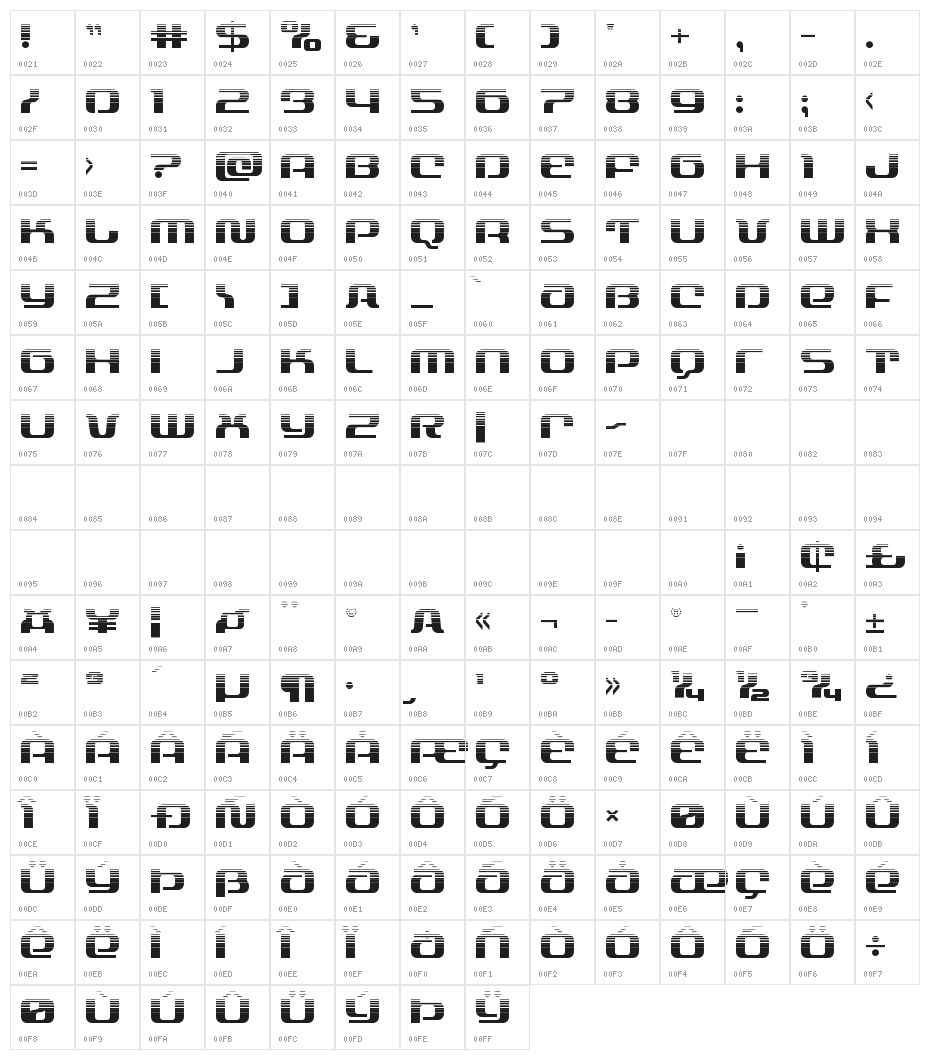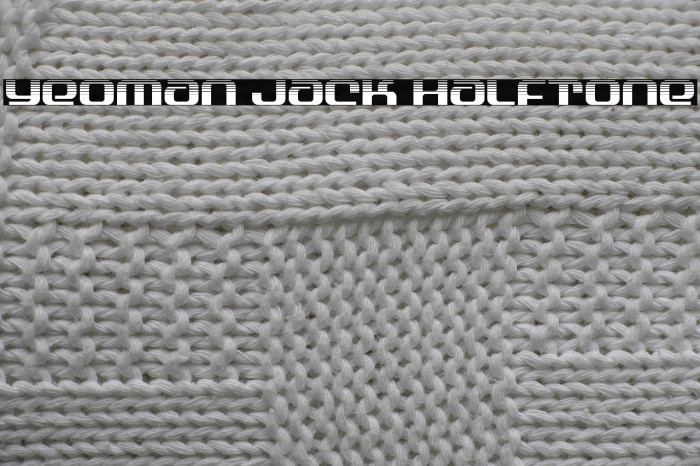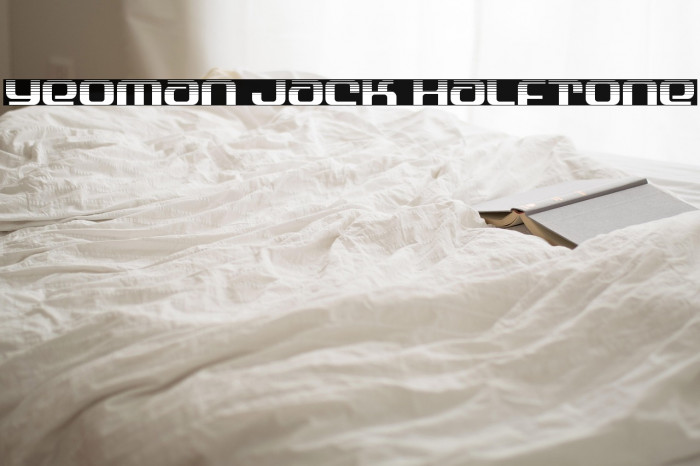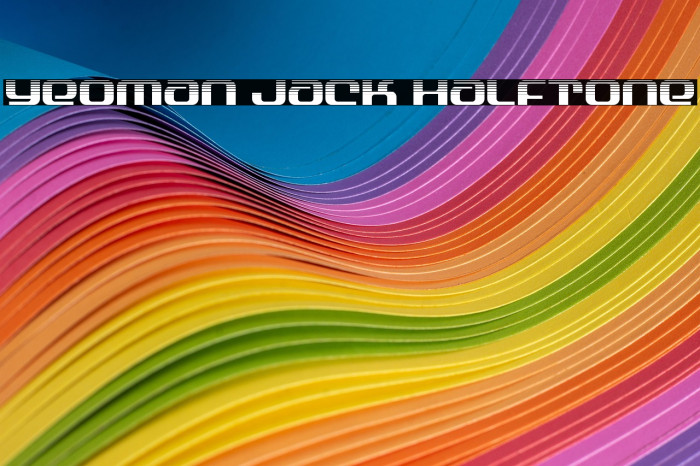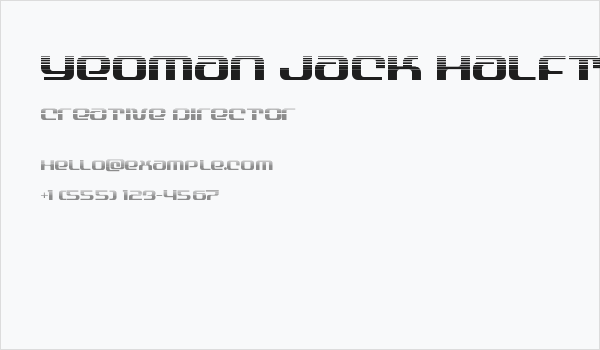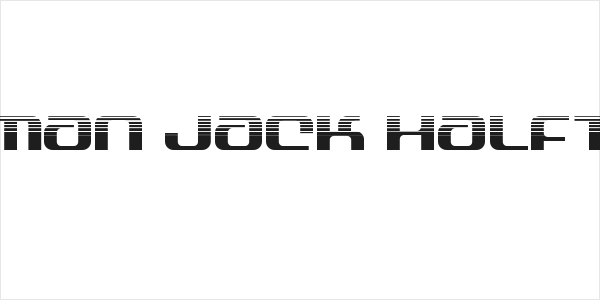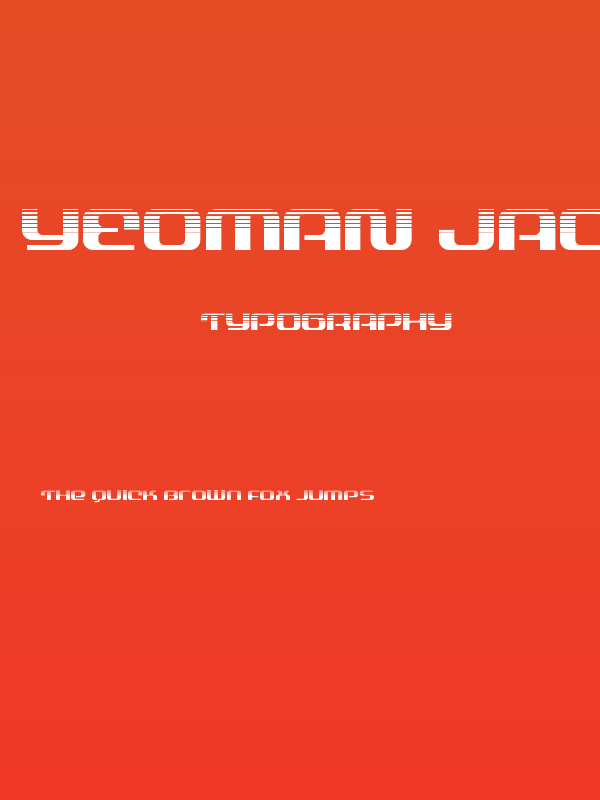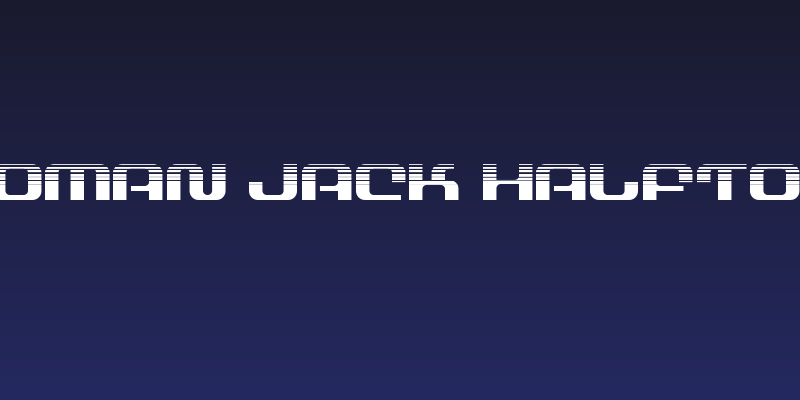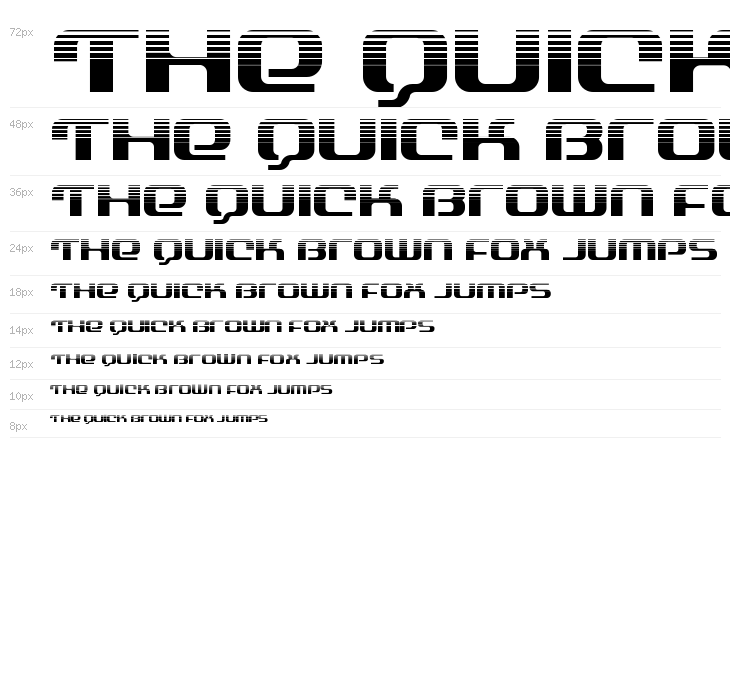
Yeoman Jack Halftone Font
Yeoman Jack Halftone Description
This font features a bold, futuristic design with a halftone effect that gives it a unique, digital appearance. The characters are constructed with horizontal lines that create a sense of movement and depth. The uppercase and lowercase letters maintain a consistent style, with rounded edges and a geometric structure. Numbers and special characters are designed to match the overall aesthetic, making the font versatile for various design applications. The halftone effect adds a layer of complexity, making it suitable for modern and tech-themed projects.
| Proposed Projects | Ideal for tech-themed designs, digital art, futuristic branding, and modern posters. |